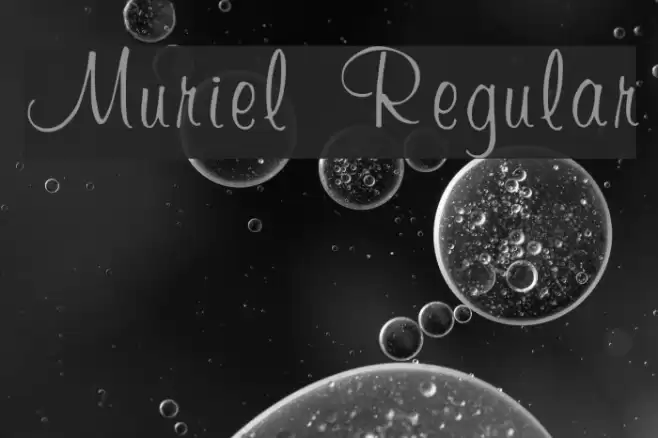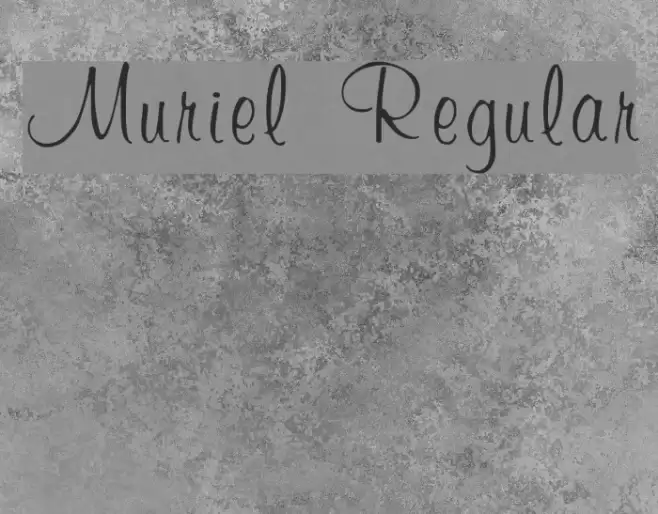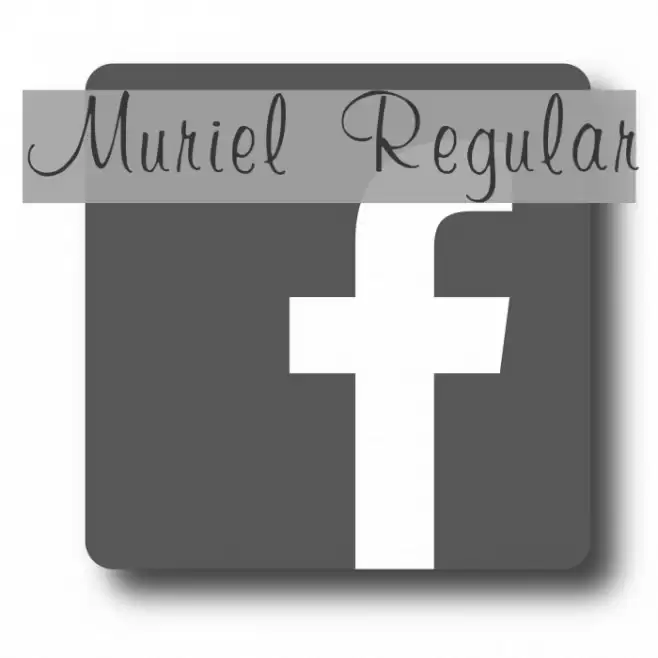
Muriel Regular Font
Muriel Regular Description
This font features a charming and elegant script style with a playful yet sophisticated appearance. The uppercase letters are gracefully curved, with a slight slant that adds a sense of movement and fluidity. The lowercase letters maintain a consistent style, with rounded forms and smooth connections between strokes. The numerals are distinct and easy to read, with a slight whimsical touch that complements the overall design. Special characters are thoughtfully crafted, maintaining the font's cohesive aesthetic. This font is versatile, offering both a sense of formality and creativity.
A charming and elegant script font with playful curves and fluid strokes from Script fonts.
- Proposed Projects: Ideal for wedding invitations, greeting cards, branding projects, and elegant packaging designs.
- Overall Style: Elegant
- Use Case: Logos, Invitations, Decorative text